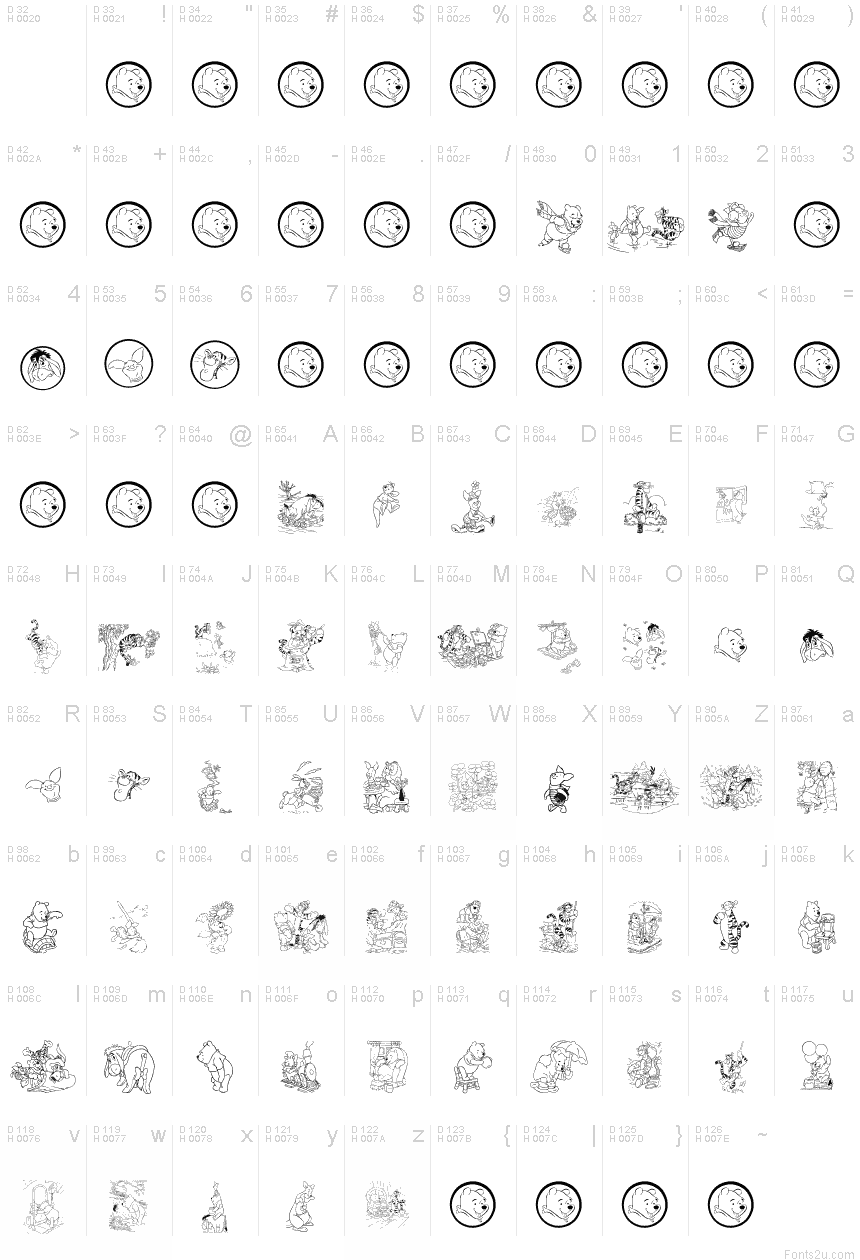
001 Disney's Pooh3
Disney's Pooh 3 by Yellowyellow is a free cartoon animal dingbat from 2006, built around storybook drawings of Pooh and friends rather than abstract symbols. The set has that soft Disney line, with rounded figures, light sketch detail, and little scenes that feel lifted from a children's book, so the overall mood is gentle, playful, and recognizably character-led.
This free font fits scrapbook pages, birthday invitations, nursery decor, classroom handouts, and themed party signage, where those familiar woodland characters can carry the page with very little else around them. It also works well for chapter openers, sticker-style graphics, and short title cards because each mark reads like a tiny illustrated moment, not just an ornament.